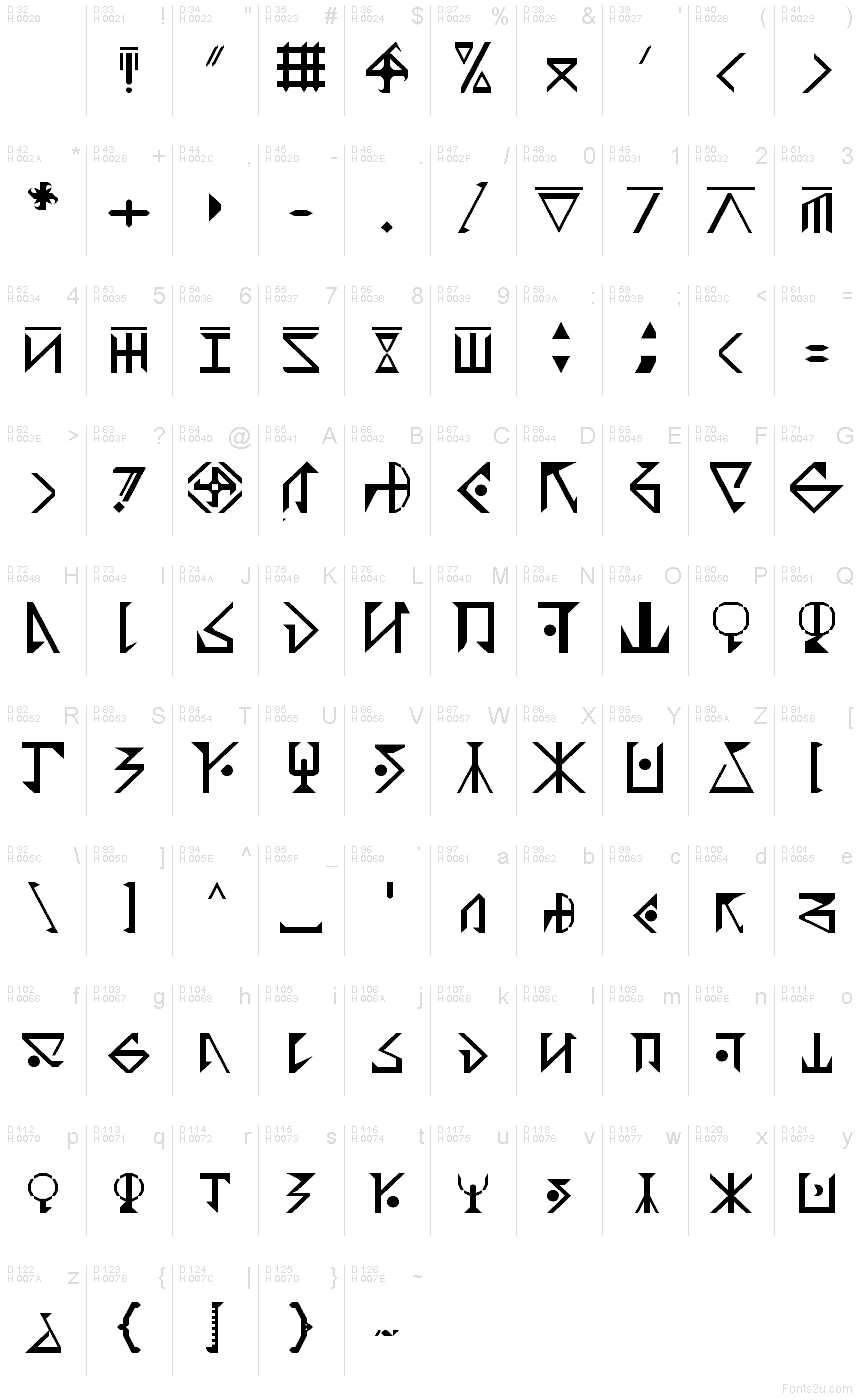
Garmillas Glyphtolite Regular
Garmillas Glyphtolite font is a futuristic dingbats font brought to you by Abelt Dessler. The characters of this experimental design are based on angular and geometric forms, which are sometimes unusual and creative. Most of the shapes provided with this modern aesthetic font have a uniform width.
Use Garmillas Glyphtolite as a free resource to create gaming interfaces, eye-catching posters, minimalist contemporary postcards, music album covers, record sleeve design, books or magazine cover design, tickets for shows and performances.
Write a message to your friends—or perhaps your allies—far away on our planet using our glyptolite font.